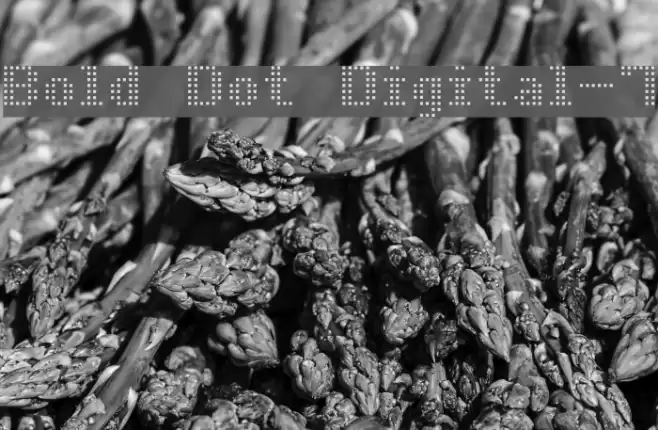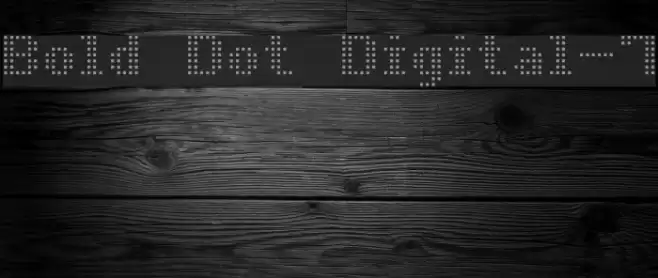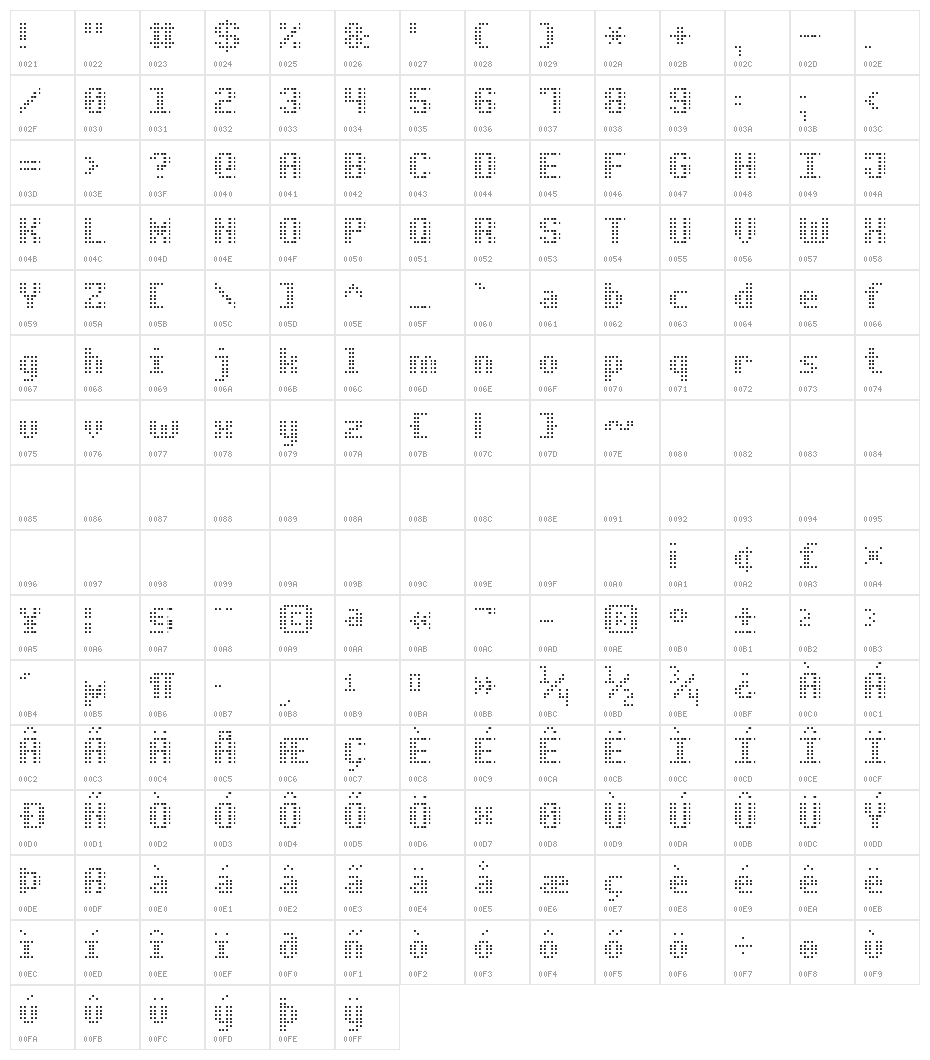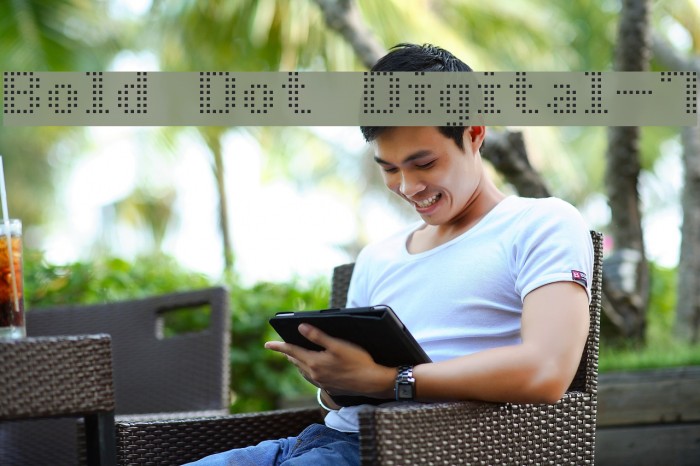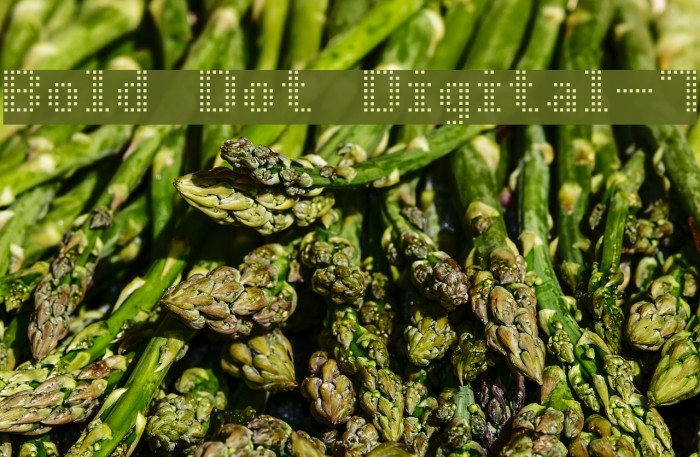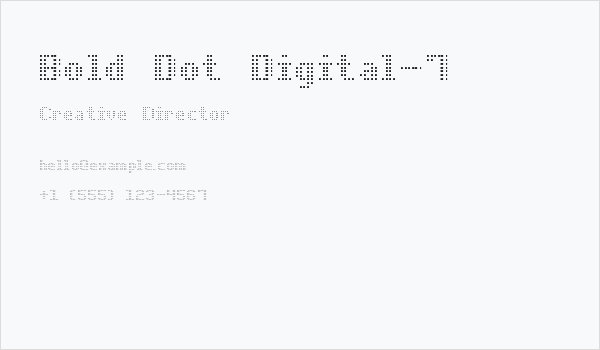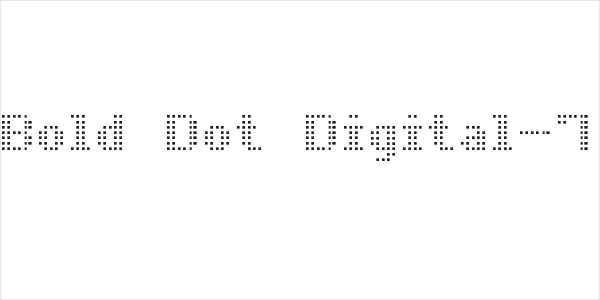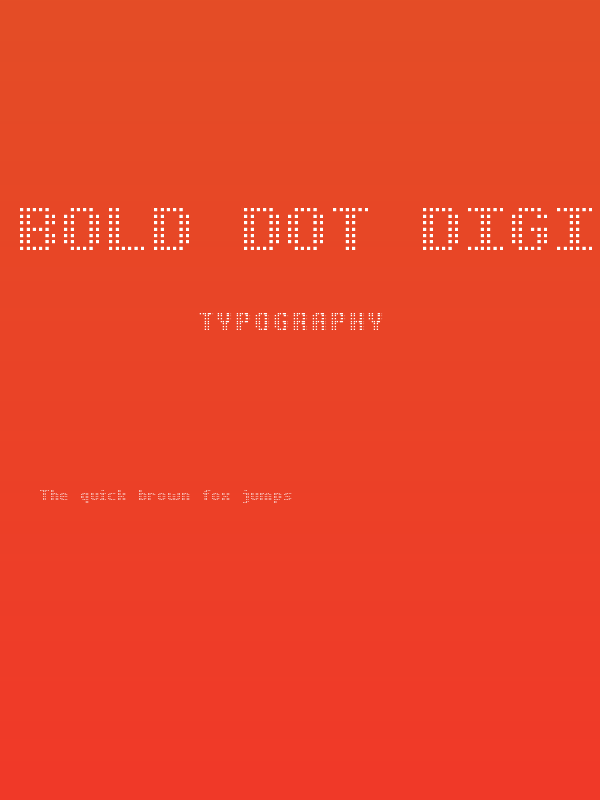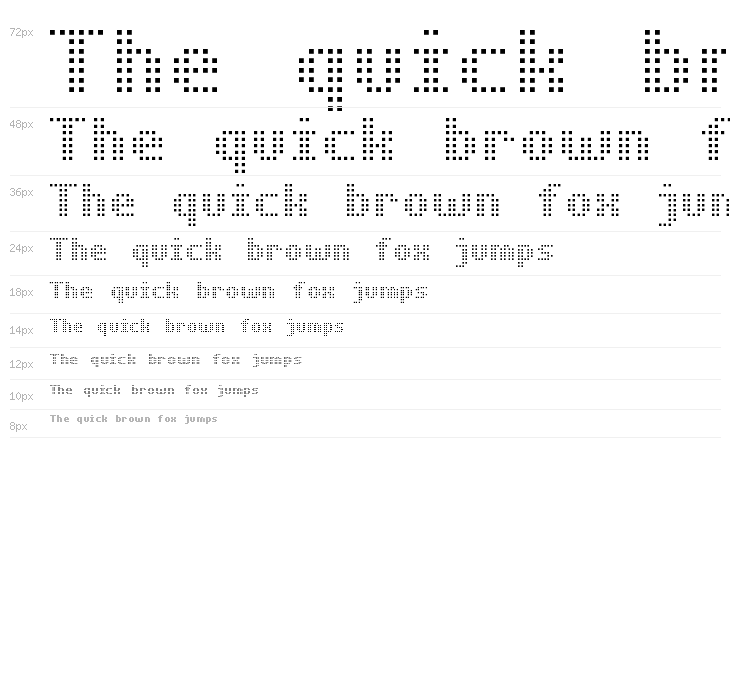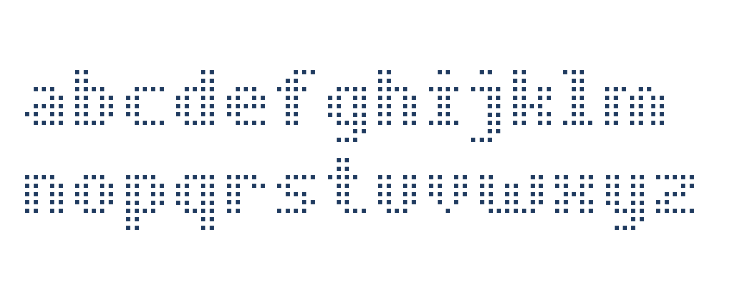
Bold Dot Digital-7 Font
Bold Dot Digital-7 Description
This font features a distinctive digital dot matrix style, reminiscent of old digital displays and LED screens. Each character is composed of a grid of dots, creating a pixelated and retro aesthetic. The uniformity of the dots provides a consistent texture across all characters, making it highly recognizable and suitable for digital-themed designs. The font is monospaced, ensuring equal spacing between each character, which enhances its digital appearance. Its bold presentation makes it stand out, ideal for capturing attention in various design contexts.
A bold, digital dot matrix font with a retro, pixelated style from Uncategorized fonts.
- Proposed Projects: Ideal for digital-themed projects, retro designs, tech-related branding, and display screens.
- Overall Style: Retro, Digital
- Use Case: Headlines, Logos, Digital Displays